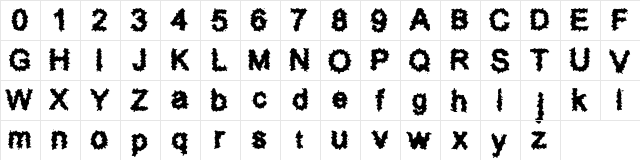
Splatz (BRK) Regular Free Font
Splatz (BRK) Regular
Design Context for Splatz (BRK)
Splatz (BRK) is a composed and adaptable typeface that performs quietly and consistently across a wide range of design contexts.